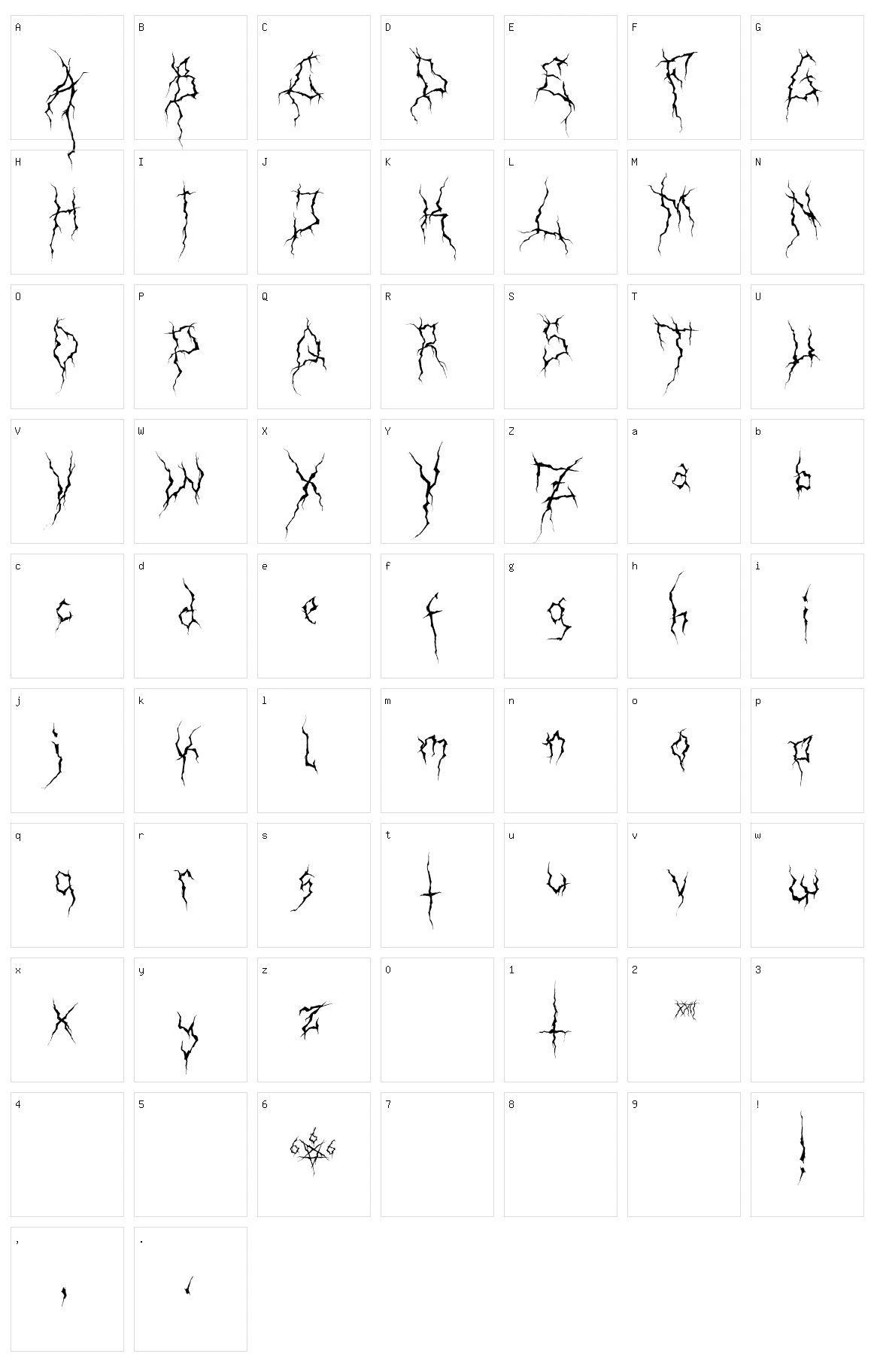
The free font XXII Ultimate Black Metal is carefully designed by Doubletwo Studios, showcasing a thoughtful balance of creativity and usability and falls under the Horror font style. When you download the ZIP file, it contains only 95.29 KB of font files, making it lightweight and quick to download. Please review the license details below to understand permitted usage and distribution rights. If license information is not available, we recommend using this font for personal projects only or contacting the author directly for commercial usage permissions.